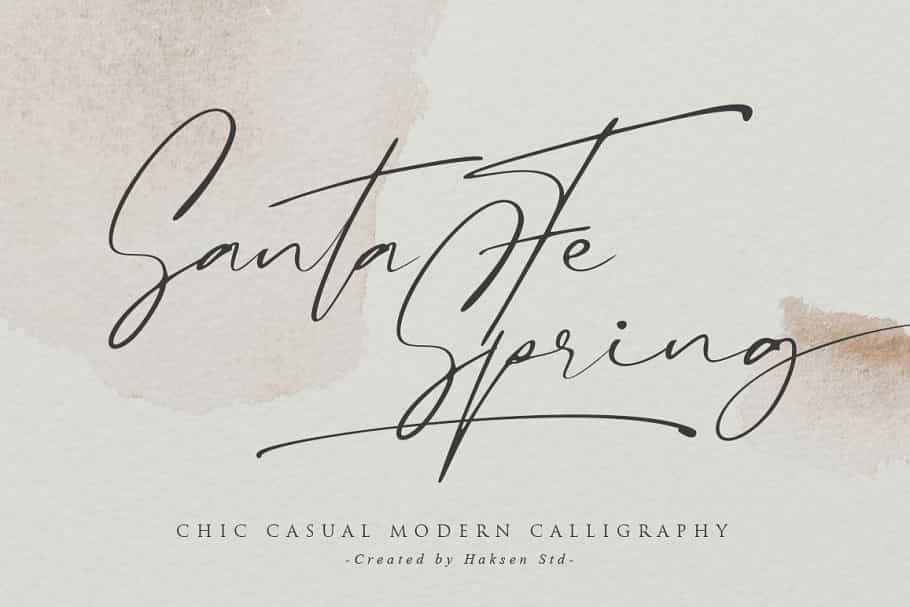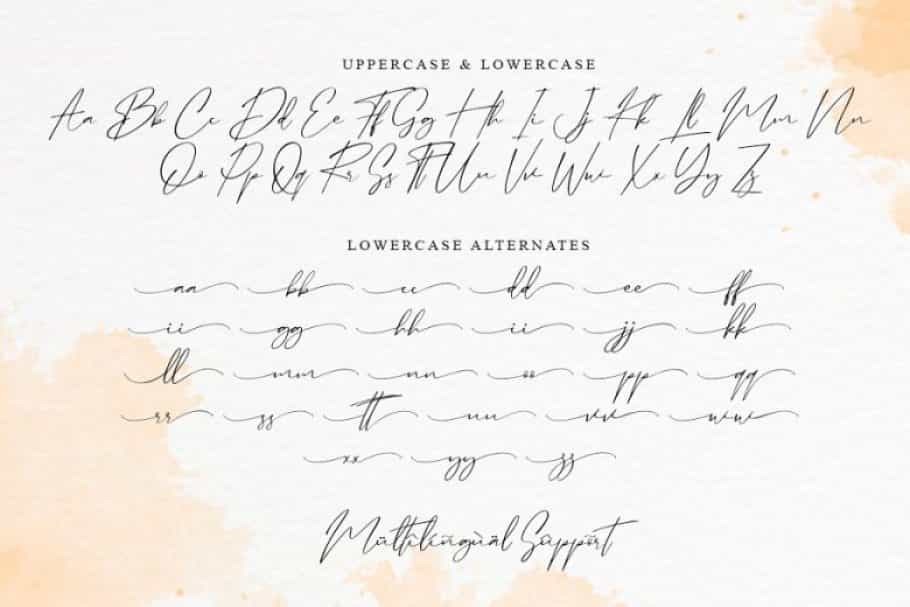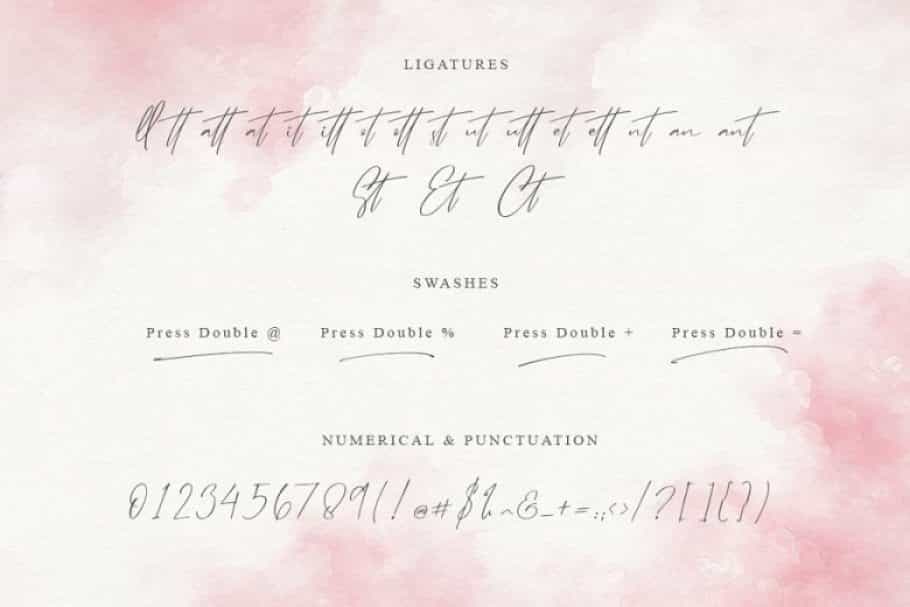
Santa Fe Spring is an elegant modern casual handwritten script font suitable for branding logotype, signatures, wedding invitations, products/packaging and much more. It has all the upper and lower case punctuation, the numbers, the letters Multilingual symbols the lowercase ending and beginning swashes ligatures and the additional swashes that give it the look of a handwritten font swash.